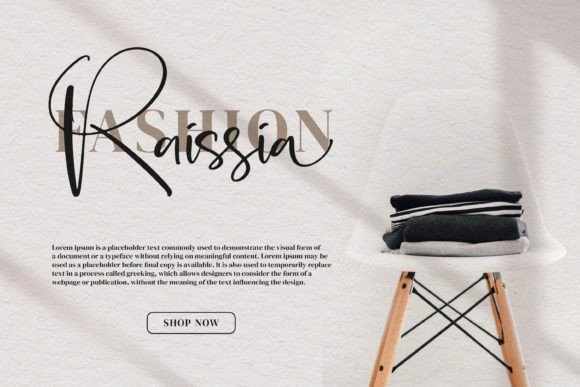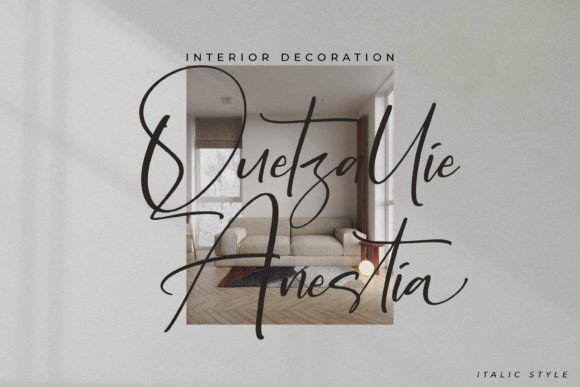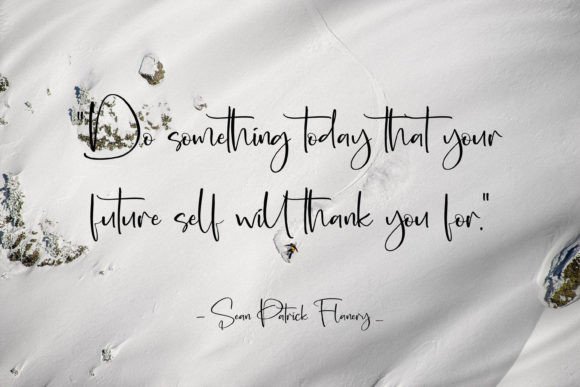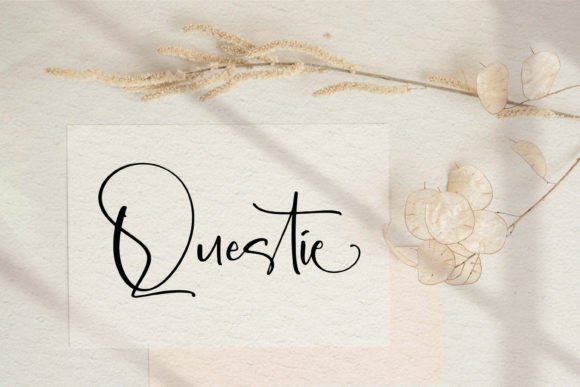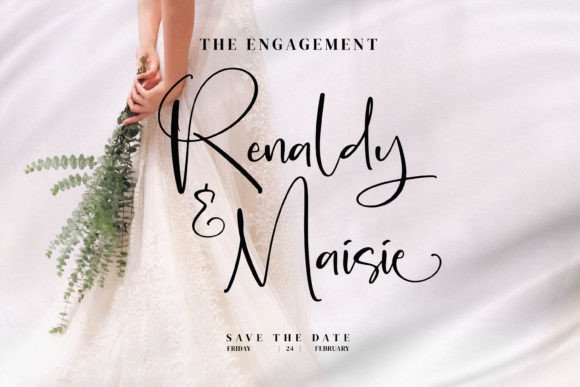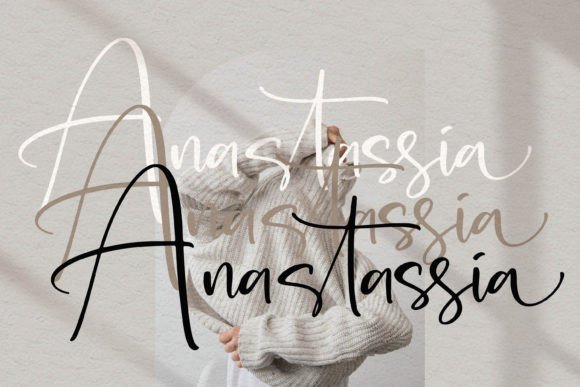
Introducing Angelica Font: Elevate Your Designs with Elegance and Sophistication
Are you on the hunt for a font that exudes luxury, sophistication, and a touch of modern flair? Look no further than Angelica Font, a stunning handwritten typeface that is sure to capture your heart. With its perfect blend of classic calligraphic influences and contemporary style, Angelica is the ideal choice for designers and crafters seeking to elevate their projects to new heights.
The Beauty of Angelica Font
Angelica Font is a masterfully designed handwritten font that boasts an exquisite, elegant feel. Its flowing lines, delicate curves, and precise craftsmanship make it a true standout in the world of typography. Whether you’re working on a branding project, crafting a beautiful wedding invitation, or designing a stylish blog, Angelica Font is the perfect choice to add a touch of sophistication and glamour.
What Sets Angelica Apart
So, what makes Angelica Font so special? Here are just a few features that set it apart from other fonts:
- Classy Calligraphic Influences: Angelica Font draws inspiration from traditional calligraphy, giving it a timeless, elegant feel that is perfect for high-end designs.
- Contemporary and Fresh: Despite its classic influences, Angelica Font feels modern and fresh, making it ideal for designers who want to create unique and stylish projects.
- Versatile: Angelica Font is incredibly versatile, making it suitable for a wide range of design applications, from logos and branding to invitations, blogs, and more.
- Easy to Read: With its clear, flowing lines and carefully crafted letterforms, Angelica Font is easy to read, even at small sizes.
Why Designers and Crafters Love Angelica Font
Designers and crafters around the world have fallen in love with Angelica Font, and it’s easy to see why. Here are just a few reasons why Angelica has become a favorite among creative professionals:
- Elegant and Sophisticated: Angelica Font adds a touch of luxury and sophistication to any design, making it perfect for high-end projects.
- Unique and Memorable: With its distinctive, hand-crafted feel, Angelica Font helps designers create unique and memorable designs that stand out from the crowd.
- Easy to Use: Angelica Font is incredibly easy to use, with a simple, intuitive design that makes it easy to incorporate into any project.
How to Use Angelica Font in Your Designs
Ready to fall in love with Angelica Font? Here are a few tips for incorporating it into your designs:
- Pair it with Bold Fonts: Combine Angelica Font with bold, modern fonts for a striking contrast that adds visual interest to your designs.
- Use it for Headlines: Angelica Font is perfect for headlines, titles, and other display text, where its elegant, sophisticated feel can really shine.
- Add it to Your Branding: Use Angelica Font to add a touch of luxury and sophistication to your branding, including logos, business cards, and letterheads.
In conclusion, Angelica Font is a truly exquisite handwritten font that is sure to capture your heart. With its perfect blend of classic calligraphic influences and contemporary style, Angelica is the ideal choice for designers and crafters seeking to elevate their projects to new heights. Whether you’re working on a high-end branding project or crafting a beautiful wedding invitation, Angelica Font is the perfect choice to add a touch of elegance and sophistication.